Summer of 76 – Multi Line Font
A sophisticated multi-line font inspired by the nostalgic 70’s aesthetic. Perfect for big headers, it also can be used for medium and small text blocks.
The Bayland – Retro Font
A retro bold script which will bring you back to 60-70s feel. Perfect for invitations, labels, logos, magazines, books, greeting / wedding cards, packaging and etc.
Naskle – Groovy Retro Font
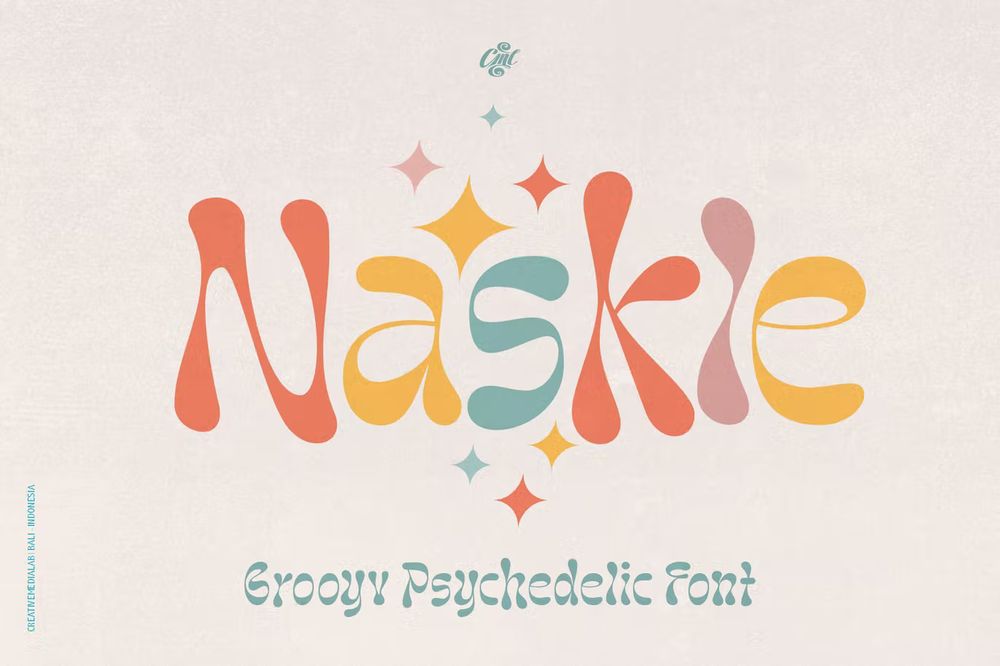
A fun psychedelic groovy font. Perfect for posters, logos, retro or vintage themes, DIY projects, baby, 70s, 80s style and etc.
NT Tonight Show Font
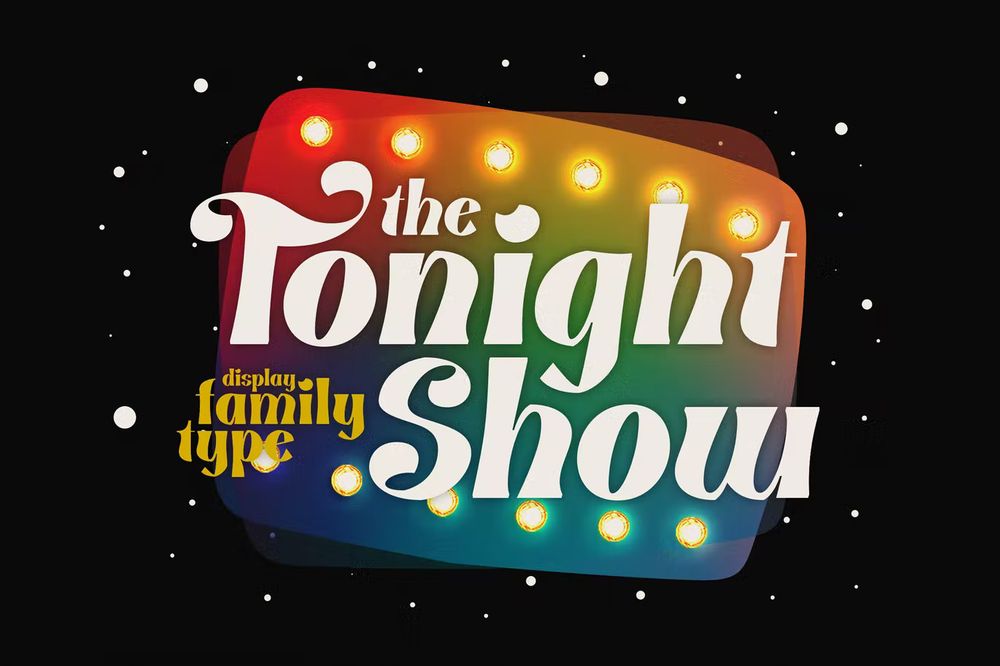
It is a display family type inspired by the 70’s talk show. A complete family pack, from light to extra black, and slant option. You will get 12 fonts along with swash and alternate in each family. Best for titles, covers, posters and etc.
Kish Quirky Display Font
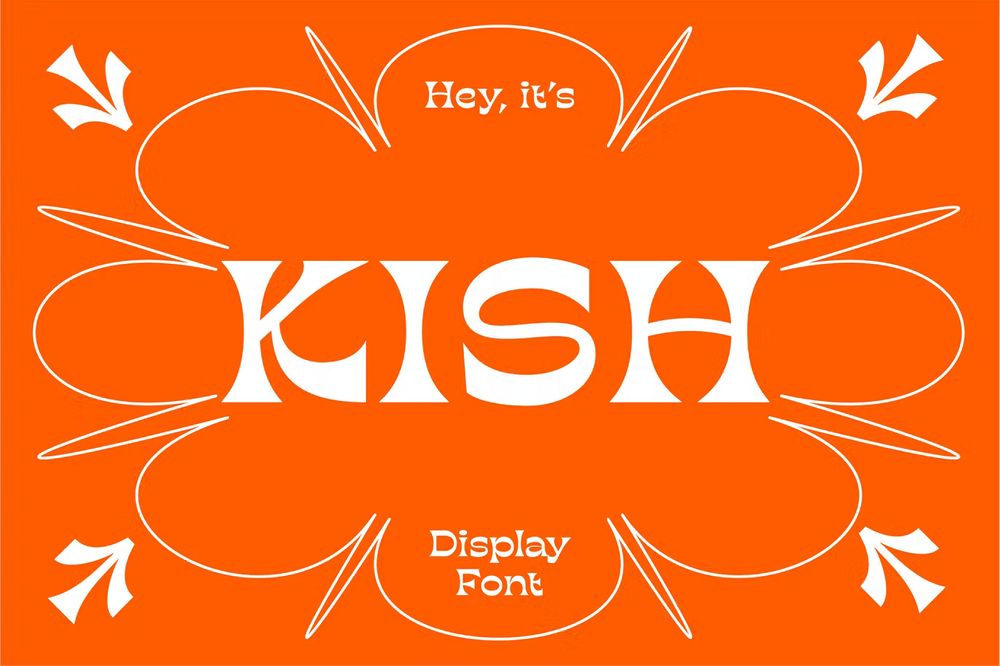
It is a super quirky display type with reverse contrast. Ideal for children designs, titles, covers, posters and etc.
Long Summer Retro Typeface
It is an amazing groove typeface for your retro 60-70s design projects such as headlines, titles, invitations, greeting cards, posters and etc.
Funkies Bold Script Font
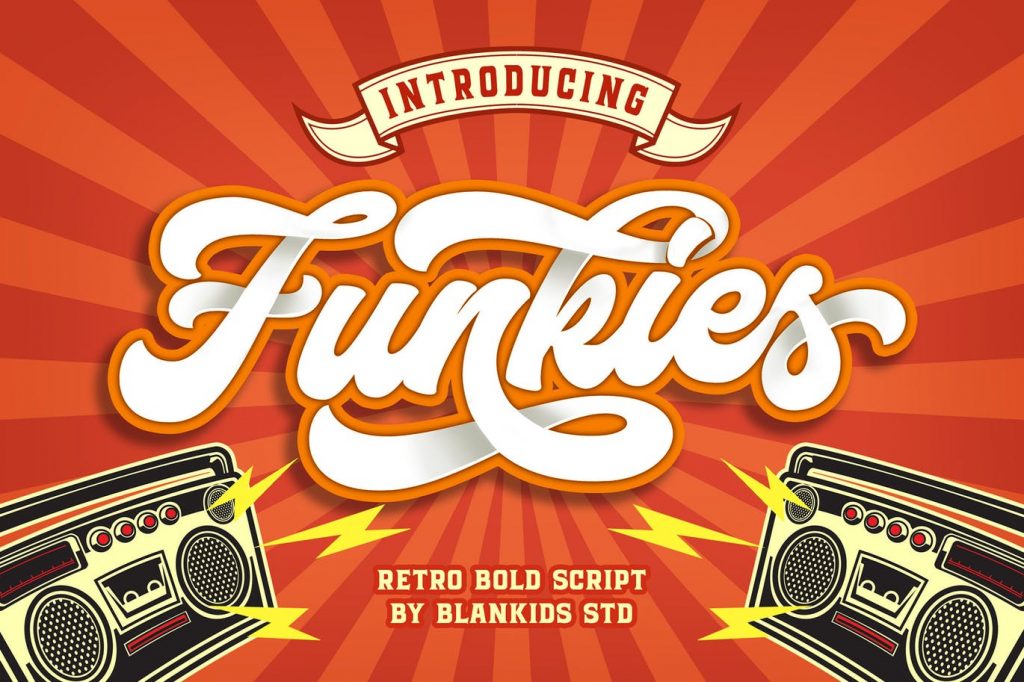
A new retro bold script. Bring back to the 70’s era inspired by posters and album covers of funk, disco and rockabilly music with bold and fun style.
Losta Masta – Retro Font
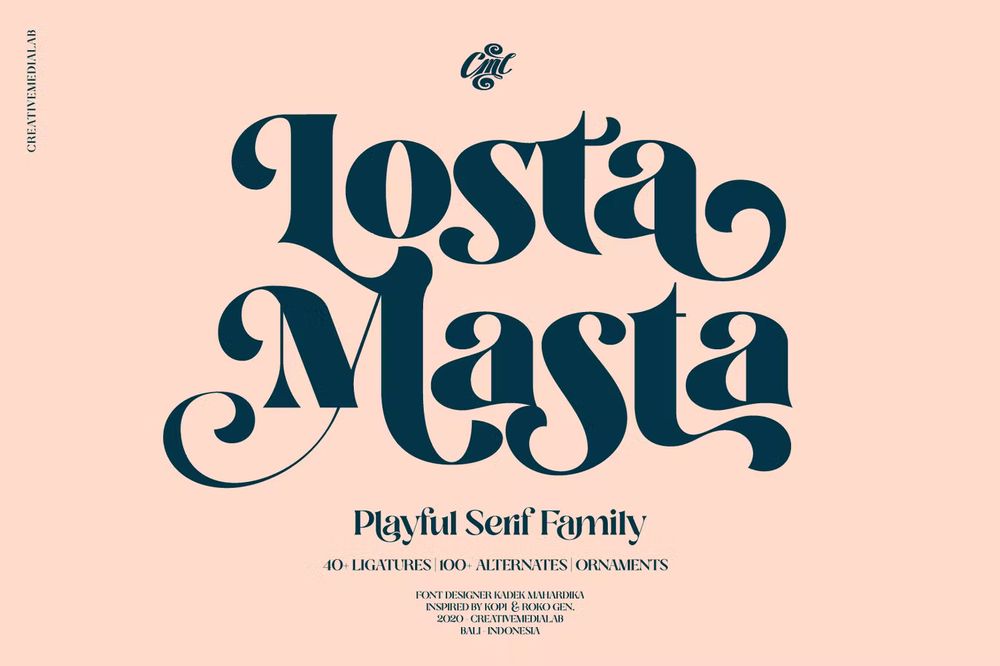
Unique, playful and versatile serif family with 40+ ligatures and 100+ alternates that you can combine to get curves and beautiful shapes just in seconds. Suitable for postcards, logos, vintage look, old classic ,60s, 70s, 80s era, wedding projects and etc.
Vintage King – Bold Retro Font
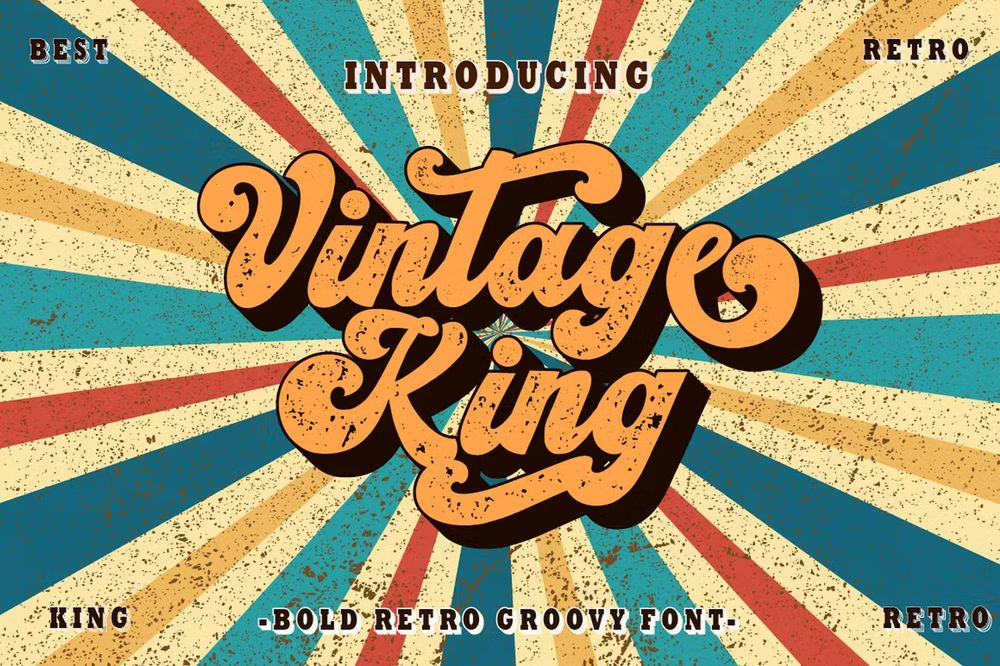
A retro bold script style font, come with clean and rough font version. Perfect for vintage and retro designs, badges, logos, t-shirts, posters, branding and etc.
Folkloric Font
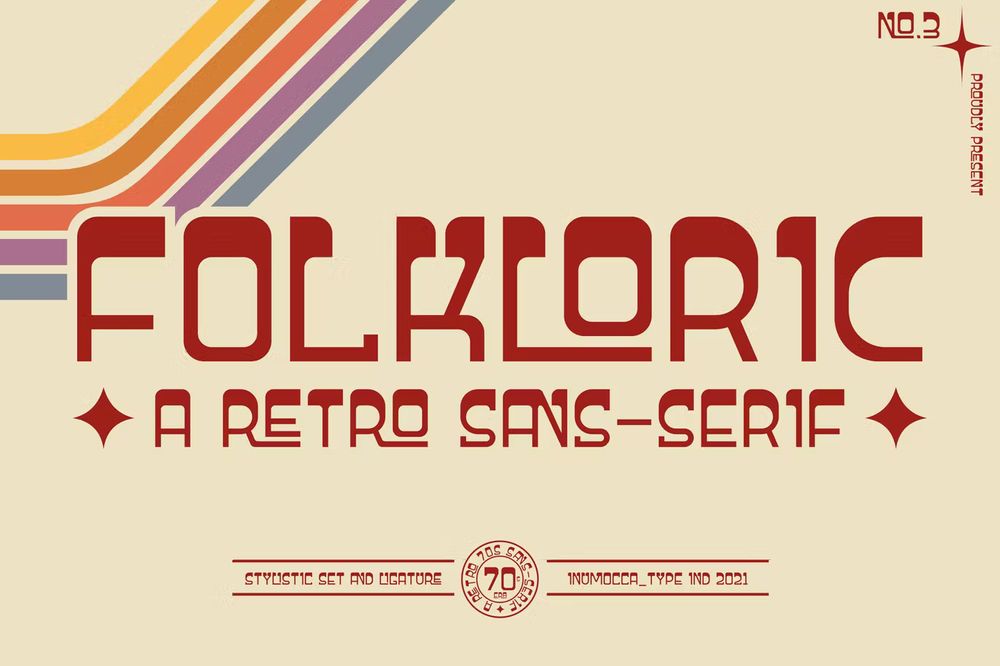
A retro sans-serif style they were particularly common in the 70s, this is a great choice for expressing a summer. Perfect for branding, movie titles, headline letters, bookcover and etc.
The Sitcom Font
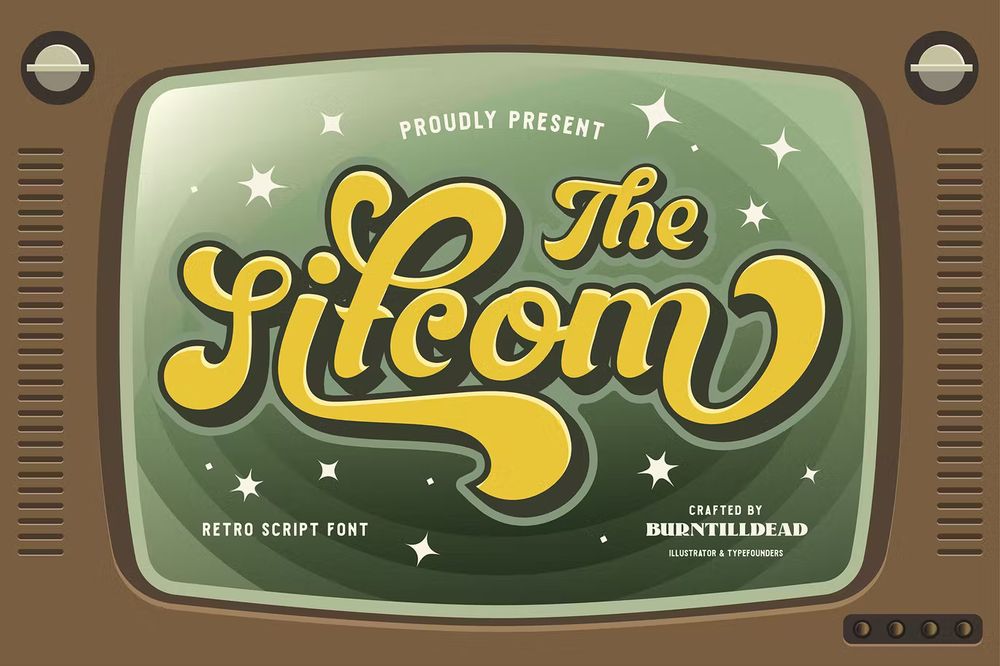
A retro script typeface inspired by 70-80’s TV show logo. Perfect for t-shirts, posters, sign boards, and social media needs.
Disco Mobile 1972 Font
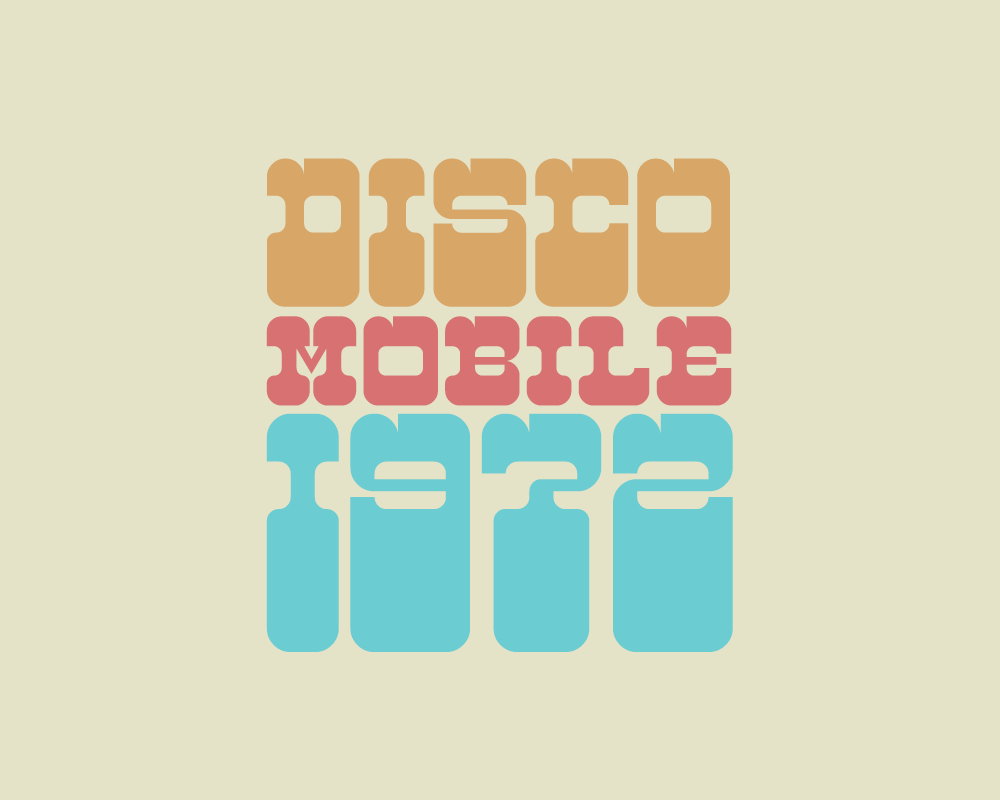
Free retro font for your design projects such as postcards, titles, book covers, posters, flyers and etc.
It’s Kind of Magic Retro Font
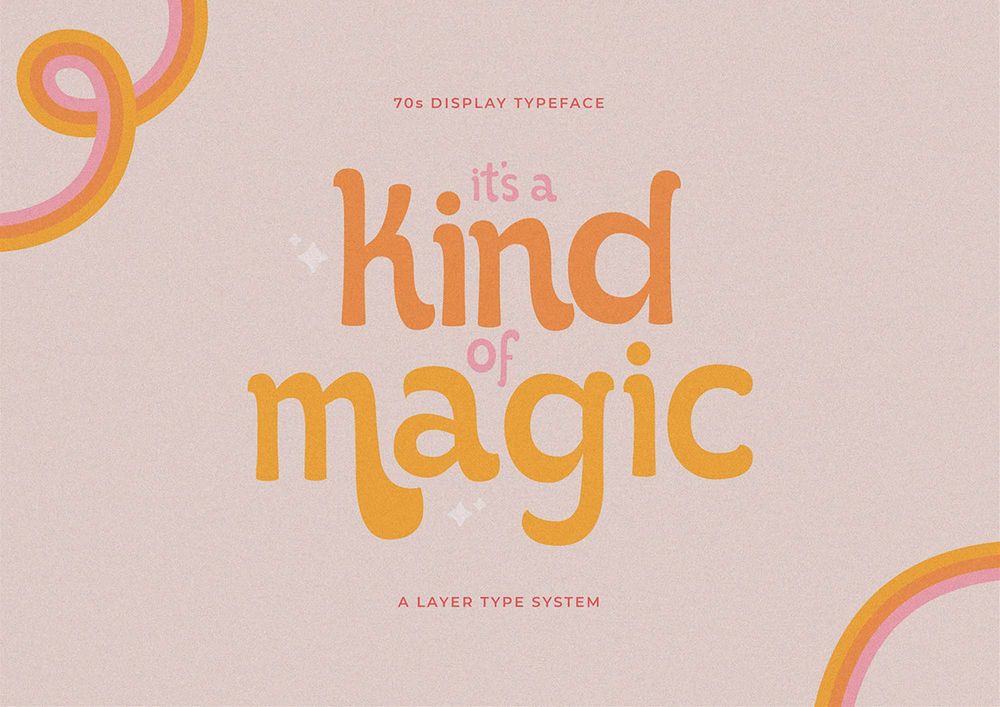
It is a reinterpretation of the freehand typography made at the time, an innovative look filled with different shapes and textures. Perfect for retro 70’s designs, logos, posters, covers, titles and etc.
Retroholic Retro Font
A free retro font dedicated for the era of 70-80s. Perfect for birthday cards, logos, quotes, social media posts, branding designs and etc.
Tangerine – Retro Font
A font from 70’s era for your retro design projects such as nostalgic mood boards and vintage logos.
The Foughe Retro Script Font
A unique, vintage, and retro font. It was designed with a classic touch which will make your design stand out. Suitable for logotypes, product designs, labels, watermarks, social media posts, apparels, invitations, signboards and etc.
Aloalla – Decorative Retro Font
It is decorative retro sans serif font. Suitable for logos, branding, greeting cards, invitation cards, advertisements, titles, headlines, book titles and etc.
Grandtown – Bold Retro Script Font
Battina – Vintage Display Font
It has the vintage & retro font style and is perfect for your nostalgy design project such as children products, branding, logos, invitations, stationery, product packaging, merchandise, monograms, blog designs and etc.
Mostyle Font
A display retro script font. Inspired by retro typography and lettering in the ’70s and ’80s combined with bold typography style. This Font is perfect for vintage and retro designs, badges, logos, posters, branding and etc.
Almonthy Mirotas – Retro Script Font
It is a stunning handwritten font with retro or vintage style. Use it to add a classic touch to any design project such as logotypes, product designs, labels, watermarks, social media posts and etc.
Puffy Chips Font
it’s retro, bold, chubby, and playful, chubby 60-70s typeface of circle in groovy style. Perfect for make any project like header, quote, layout magazine and other.
It is a new typeface based on real brush pen script and also influenced by lettering shapes from the sixties and seventies. Perfect for greeting cards, invitations, t-shirts, packaging and etc.
Blanch Sage – Retro Font
A modern retro font with fun and elegant style can bee perfect for branding, logos, invitations, master heads, and more.
Nellie – Display Font
It is bold, friendly, and playful – perfect for 60’s and 70’s inspired designs such as book covers, titles, posters, greeting cards, flyers and etc.